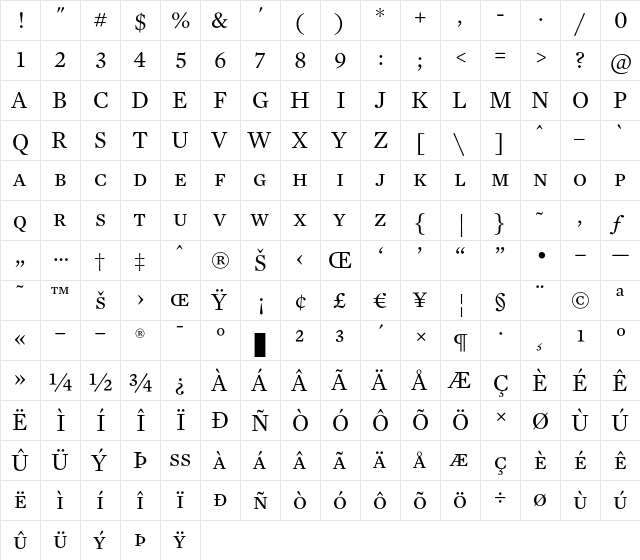
Mercury Text G1 Roman SC
Design Context for Mercury Text G1 Typeface
Mercury Text G1 is a composed and adaptable typeface that performs quietly and consistently across a wide range of design contexts.
Pro Tip: Use Mercury Text G1 in both headline and body roles to test its range before committing to a single application.